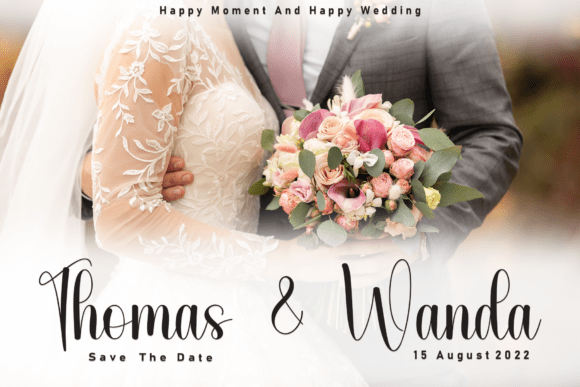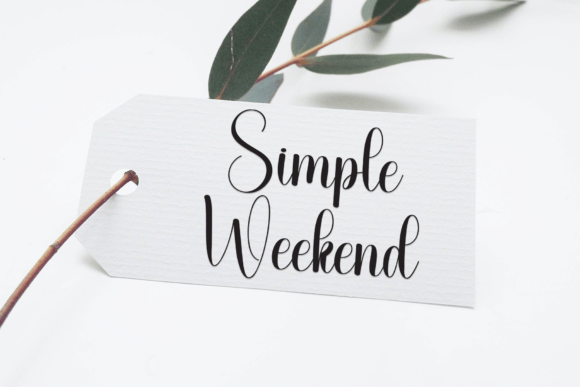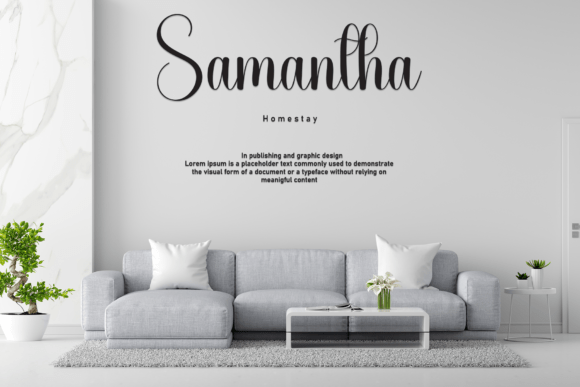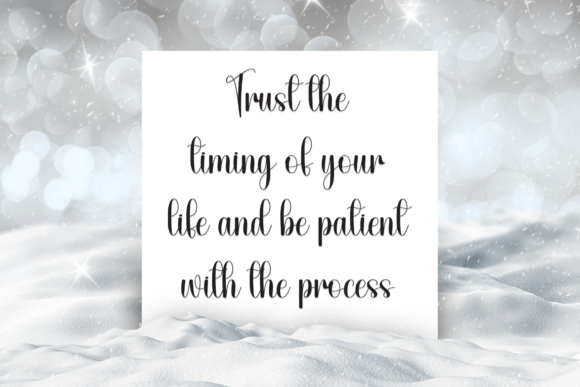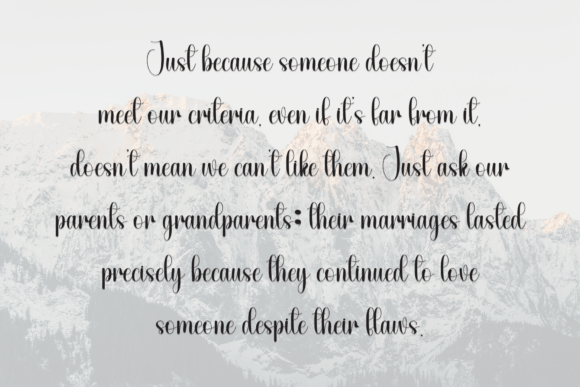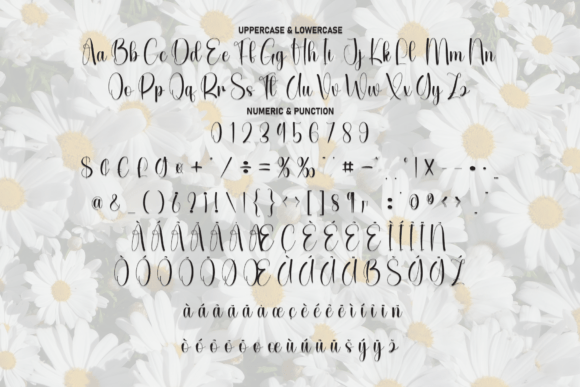
Daisy Font: The Sweet and Friendly Handwritten Display Font
Are you looking for a font that can add a playful touch to your designs? Do you want to make your wedding invitations, greeting cards, or any other design project stand out with a unique and charming flair? Look no further than the Daisy Font, a refreshingly charming, handwritten display font that is as sweet as it is friendly.
The Charm of Daisy Font
Oozing cuteness and a dash of fun, the Daisy Font is the perfect choice for designers and crafters who want to add a personal touch to their work. This delightful font is designed to bring a smile to the reader’s face, making it ideal for projects that require a friendly and approachable tone. With its invitingly personal handwriting-style, the Daisy Font is sure to make your designs stand out from the crowd.
Perfect for Playful Designs
The Daisy Font is perfect for a wide range of design projects, from wedding invitations and greeting cards to social media graphics and blog posts. Its playful and whimsical nature makes it an excellent choice for designers who want to add a touch of personality to their work. Whether you’re creating a formal or informal design, the Daisy Font is sure to bring a level of charm and sophistication that will delight your audience.
Unlock a World of Creativity
With the Daisy Font, you can unlock a world of creativity and take your designs to the next level. This font is designed to be versatile and easy to use, making it perfect for designers of all skill levels. Whether you’re a seasoned pro or just starting out, the Daisy Font is a great addition to your font library.
Key Features of Daisy Font
• Handwritten display font: The Daisy Font is a handwritten display font that is designed to add a personal touch to your designs.
• Sweet and friendly: This font is as sweet as it is friendly, making it perfect for projects that require a playful and approachable tone.
• Cute and fun: The Daisy Font oozes cuteness and a dash of fun, making it ideal for designers who want to add a touch of personality to their work.
• Perfect for wedding invitations and greeting cards: This font is perfect for wedding invitations, greeting cards, and any other design project that requires a touch of elegance and sophistication.
• Easy to use: The Daisy Font is easy to use and versatile, making it perfect for designers of all skill levels.
Tips for Using Daisy Font
Here are a few tips for using the Daisy Font in your designs:
• Use it for headings: The Daisy Font is perfect for headings and titles, where its playful and whimsical nature can really shine.
• Pair it with other fonts: Try pairing the Daisy Font with other fonts to create a unique and interesting contrast.
• Experiment with colors: The Daisy Font looks great in a variety of colors, so don’t be afraid to experiment and find the perfect hue for your design.
• Use it for personal projects: The Daisy Font is perfect for personal projects, such as wedding invitations, greeting cards, and social media graphics.
In conclusion, the Daisy Font is a sweet and friendly handwritten display font that is perfect for designers and crafters who want to add a playful touch to their work. With its invitingly personal handwriting-style and cute and fun design, this font is sure to make your designs stand out from the crowd. So why not give it a try and unlock a world of creativity and possibility?